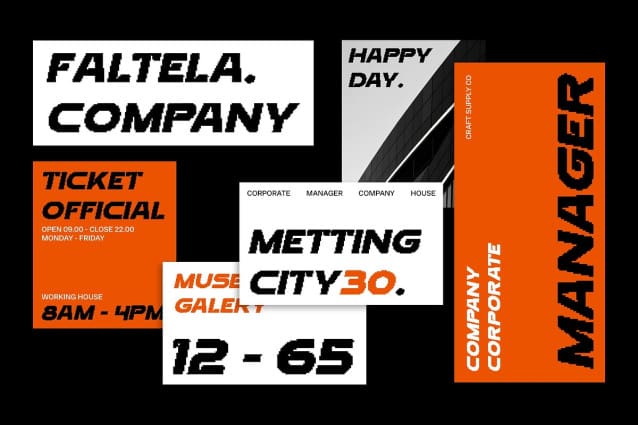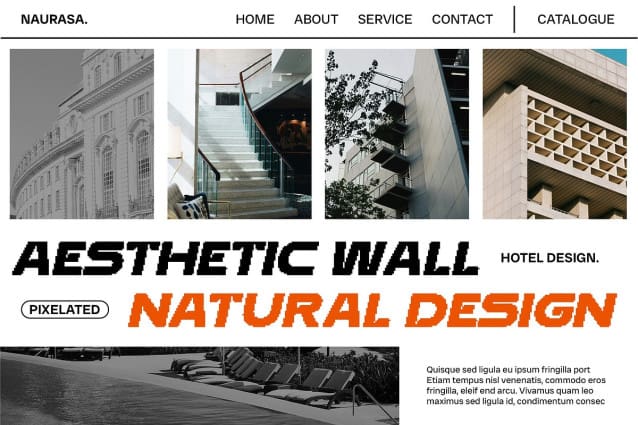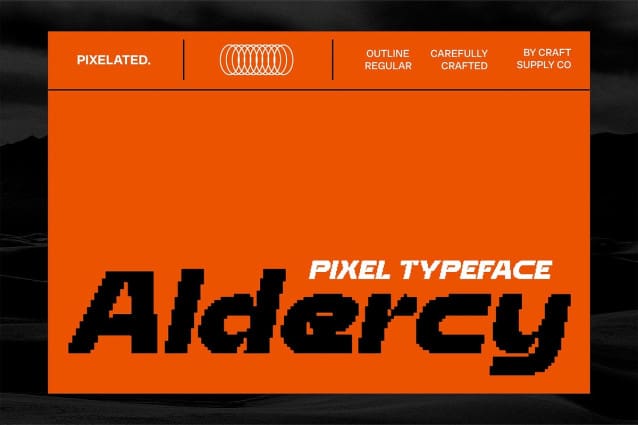
Aldercy Pixel Font
Aldercy Pixel Font is a modern sans-serif font featuring a bold and pixelated effect. Its thick, boxy shapes combined with pixelation create a distinctive retro-futuristic aesthetic.
Unique and Digitally-Inspired The pixel effect brings a unique, digitally-inspired look to any design. This blend of bold sans-serif forms and pixelation offers a strong visual impact, making it stand out in both digital and print media.
Versatile and Modern Aldercy Pixel is versatile yet specific enough to convey a modern, high-tech, and creative vibe. It’s an excellent choice for various design projects that require a unique and eye-catching font.
Ideal for Creative Designs Perfect for posters, websites, branding, and other creative designs, Aldercy Pixel ensures your text is both seen and remembered. Its retro-futuristic style adds a unique touch, making your designs memorable and visually striking.